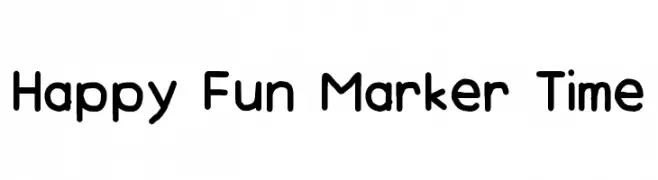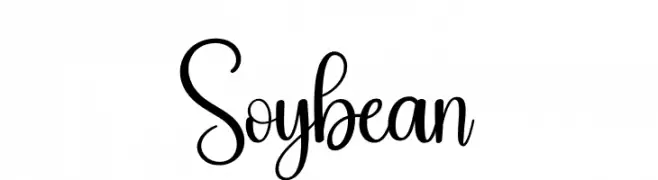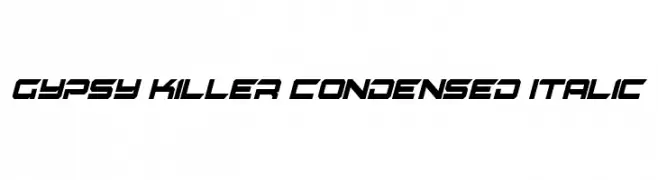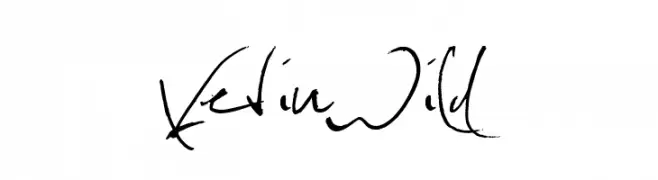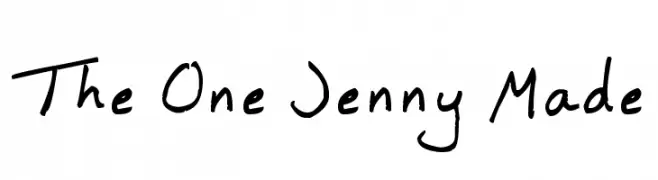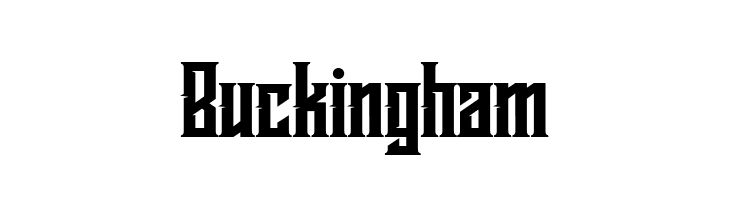
A playful, whimsical script font with flowing, cursive letterforms and moderate contrast.
A bold, condensed, and italicized font with a futuristic and dynamic design.
A dynamic and expressive handwritten font with fluid strokes.
A playful, handcrafted font with a rustic, homespun aesthetic.
A decorative and elongated font with a futuristic and bold style.
A playful, handwritten font with rounded, dynamic characters.